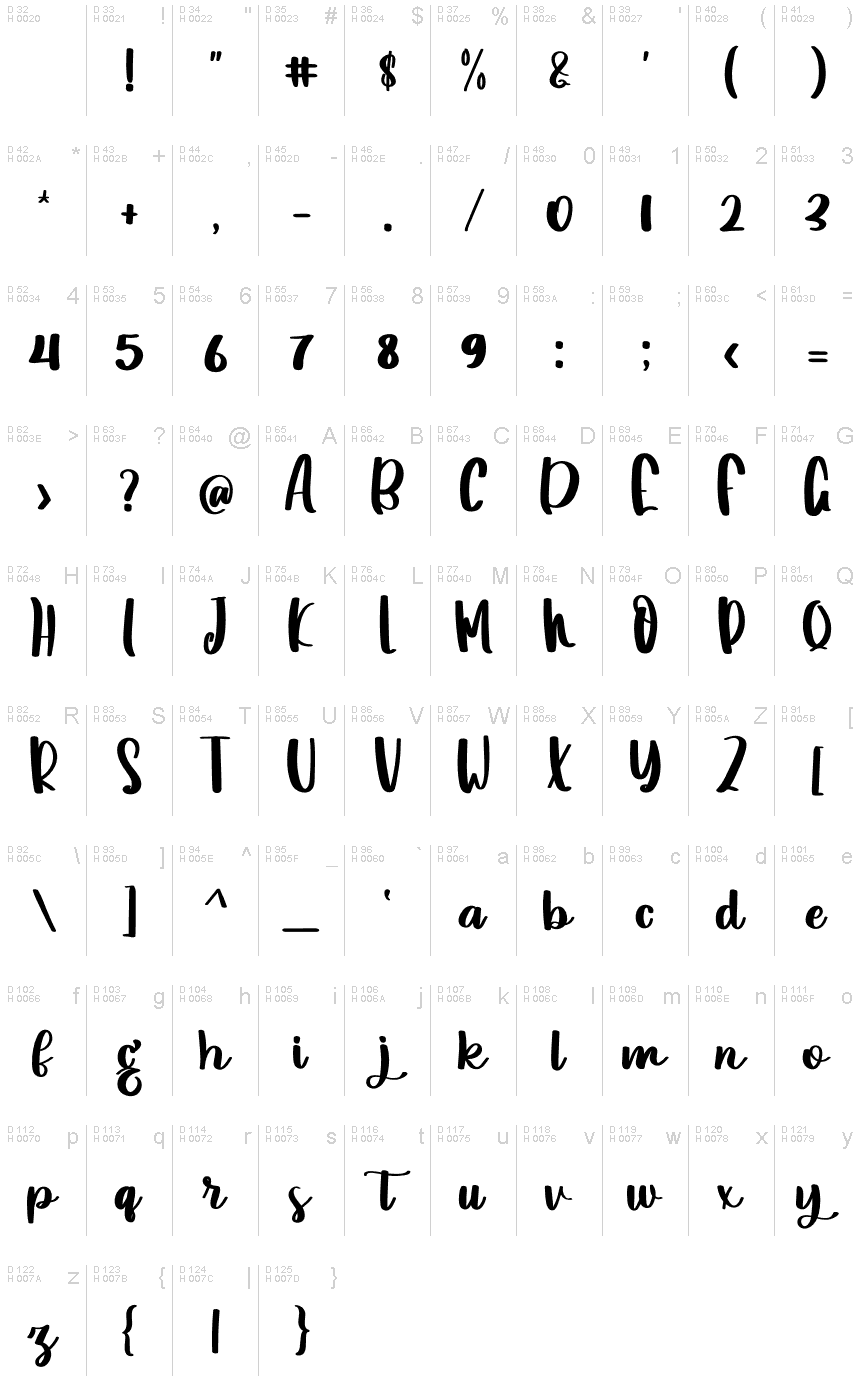
Wedding Mermaid
Say "I do" to Wedding Mermaid, the perfect font for any romantic project. Designed by FreshtypeINK, this bold handwritten marker font adds a whimsical touch to wedding invitations, save-the-dates, and thank-you cards. Its playful yet elegant style also makes it suitable for branding materials for wedding planners and event coordinators. Let Wedding Mermaid make your special day even more magical with its unique and eye-catching design.